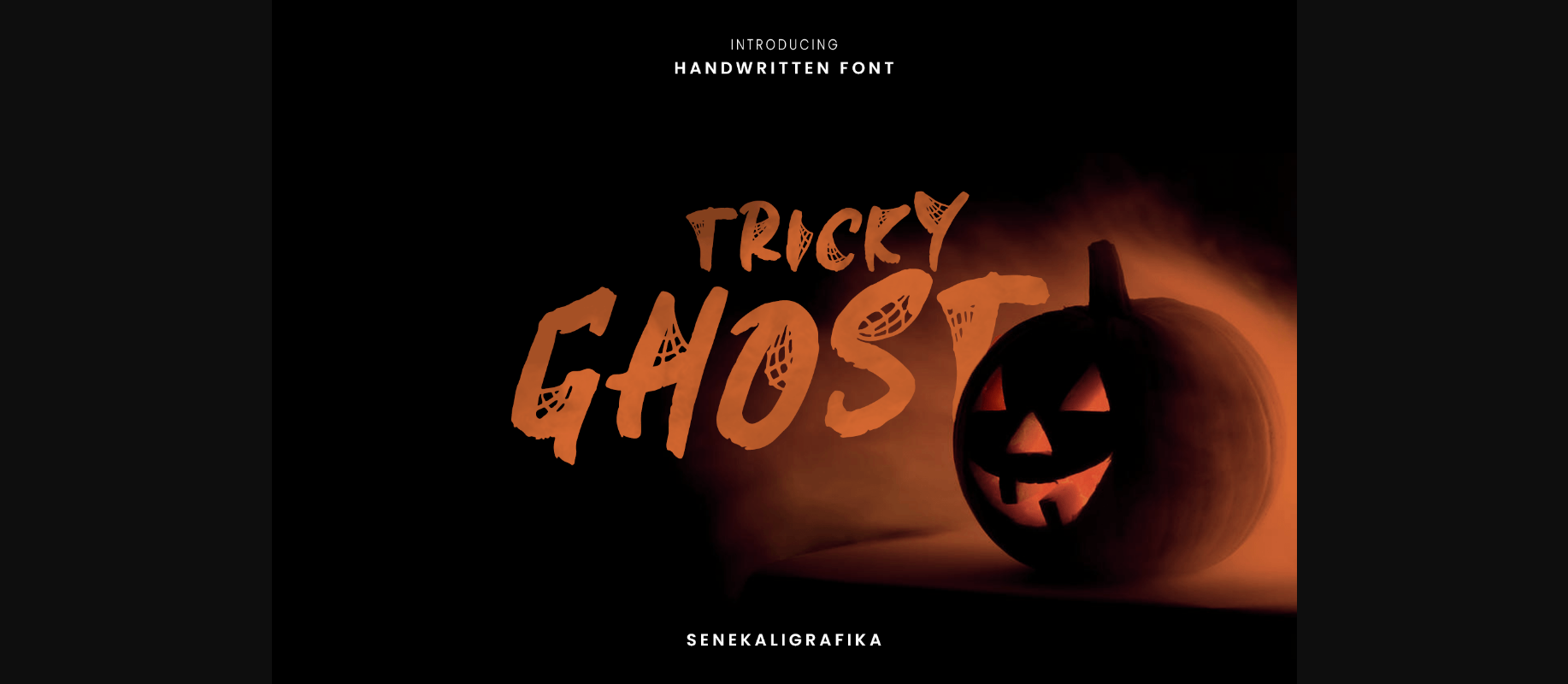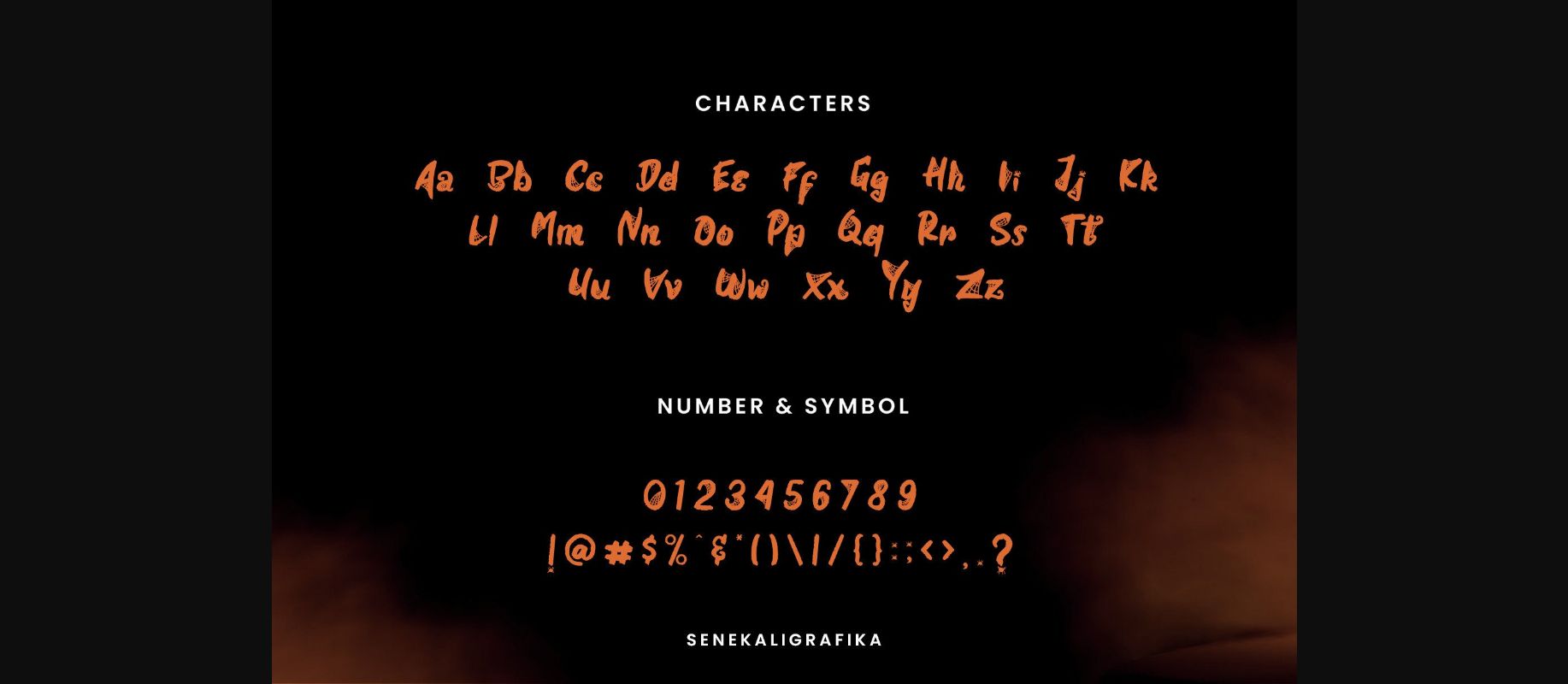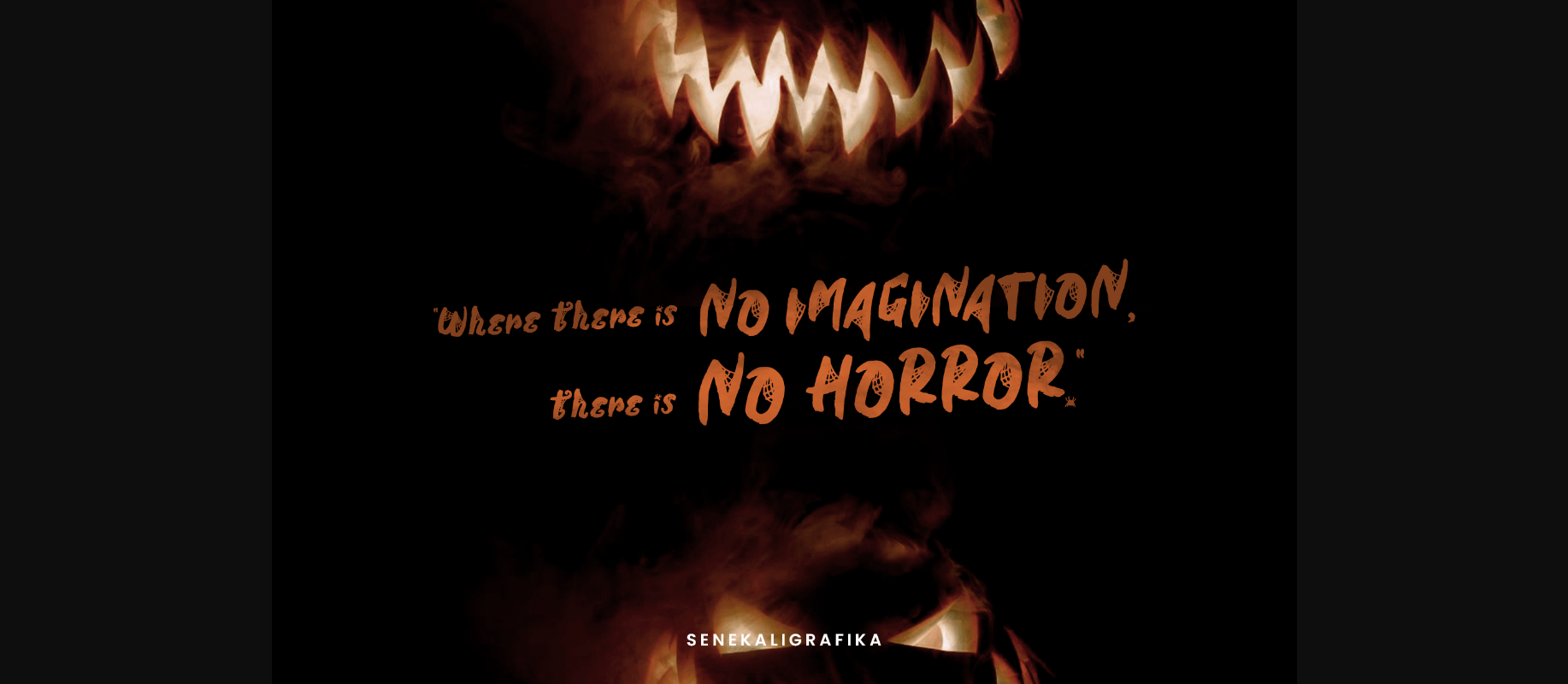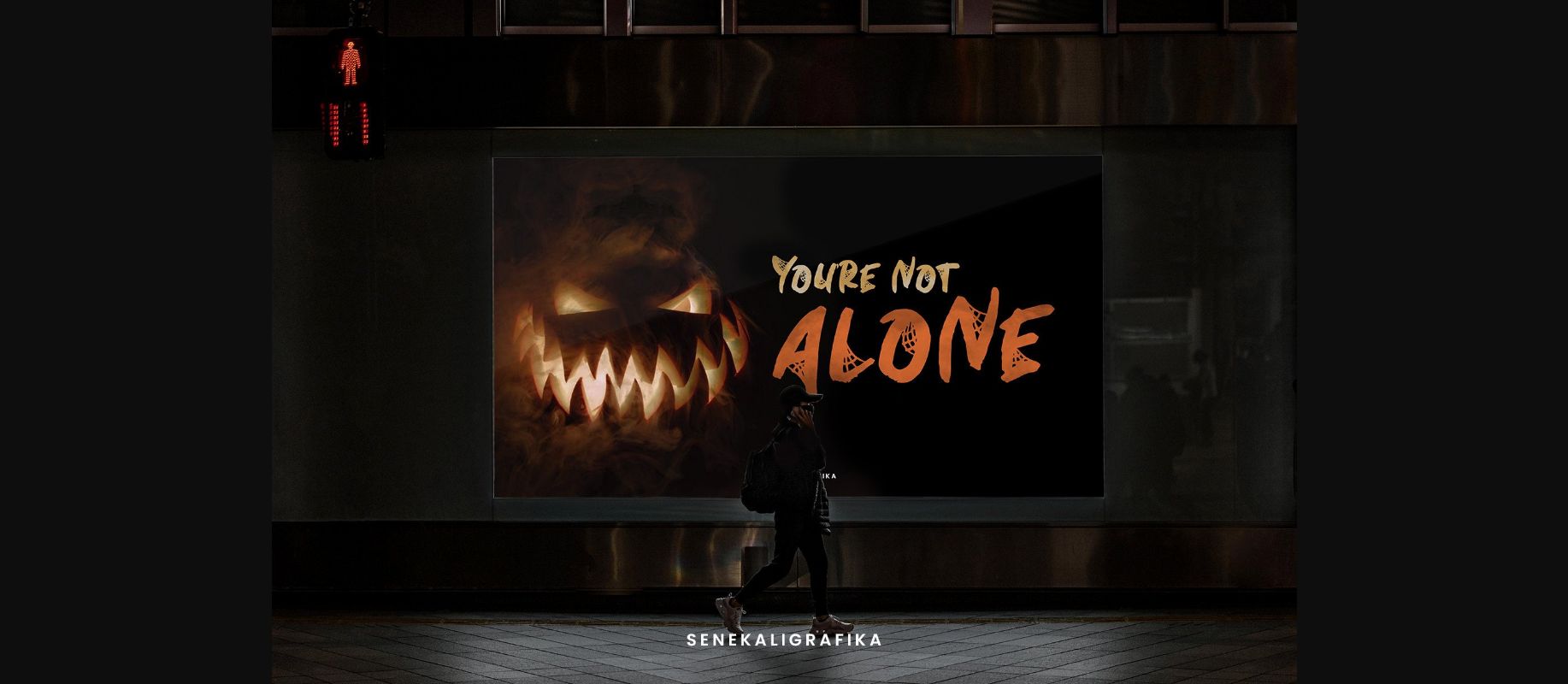
About Tricky Ghost Font
“Tricky Ghost” has a hard, unique, and signature style with spider web details in every letter that speaks to instant Halloween sensations.
“Tricky Ghost” will help you create special and touching typographical designs for your Halloween and spooky projects, greeting cards, Halloween projects, branding, labeling, clothing, movie title, album cover, logos, and many more.
It is really a universal and modern font.
The owner of endless possibilities!
“Tricky Ghost” will help you create special and touching typographical designs for your Halloween and spooky projects, greeting cards, Halloween projects, branding, labeling, clothing, movie title, album cover, logos, and many more.
It is really a universal and modern font.
The owner of endless possibilities!